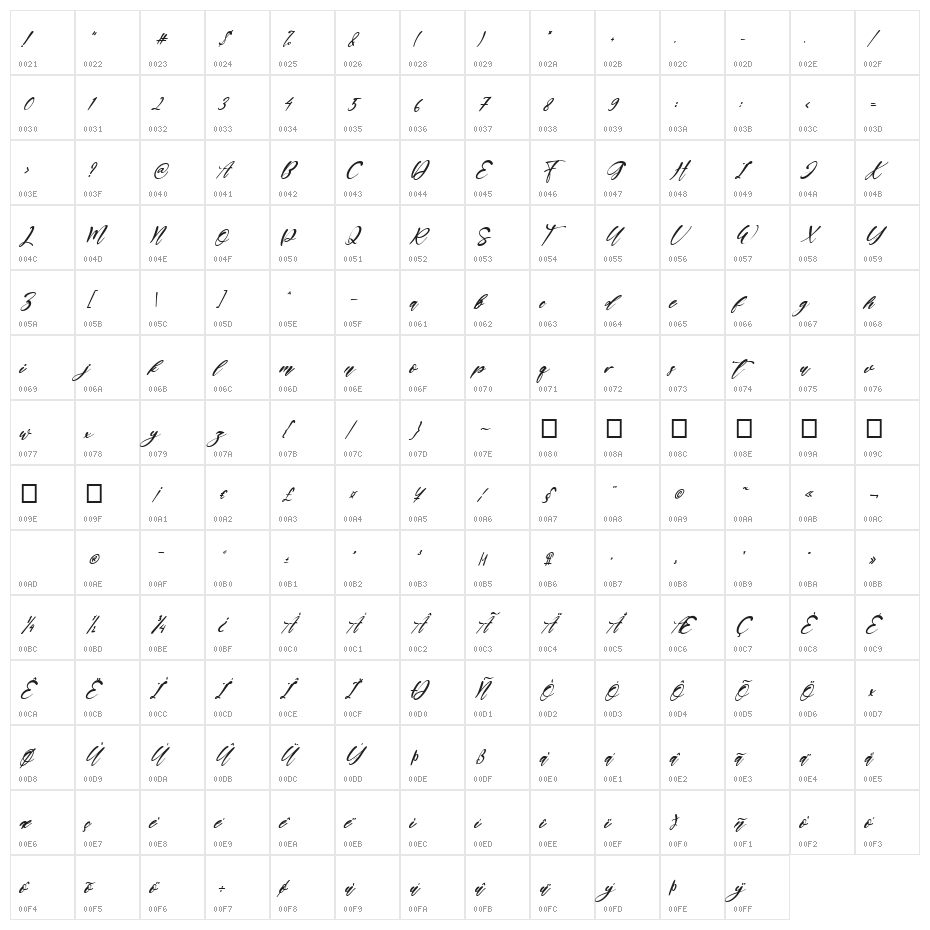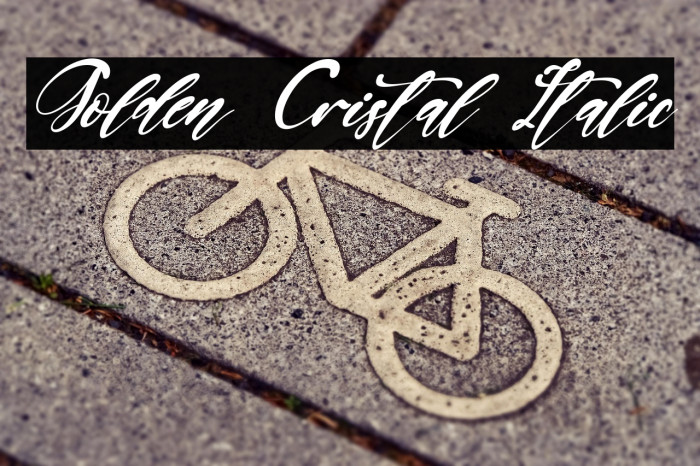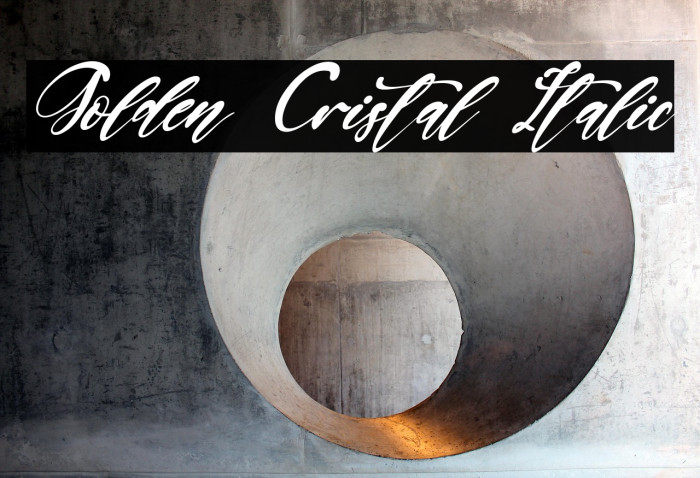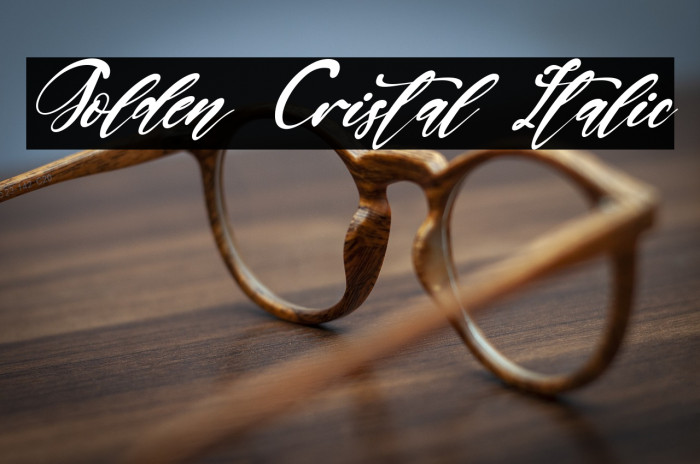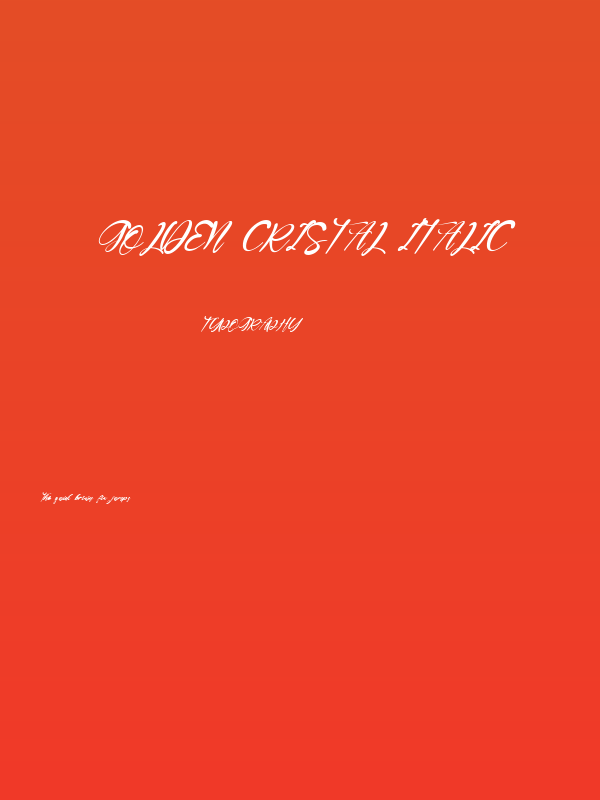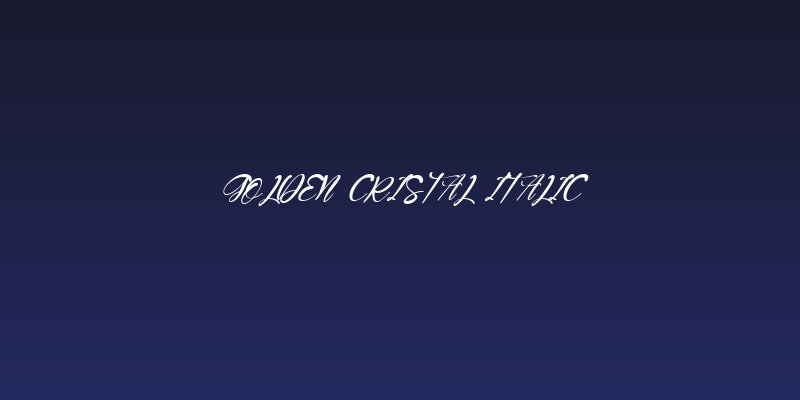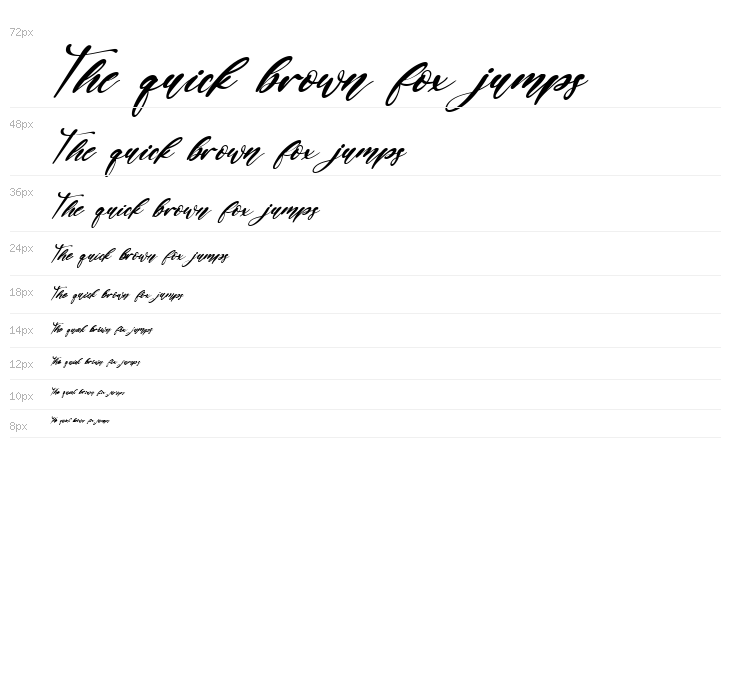
Golden Cristal Italic Font
Golden Cristal Italic Description
This elegant script font features a flowing, cursive style with a sophisticated and artistic flair. The letters are interconnected, creating a seamless and fluid appearance. The strokes are smooth and graceful, with a slight slant that enhances its italic nature. The uppercase letters are bold and prominent, while the lowercase letters maintain a delicate balance, offering a harmonious blend. The numerals and special characters are crafted with the same attention to detail, ensuring consistency throughout. This font exudes a sense of luxury and refinement, making it ideal for high-end branding and design projects.
| Overall Style | Elegant, Sophisticated |
| Proposed Projects | Ideal for wedding invitations, luxury branding, elegant stationery, and high-end product packaging. |